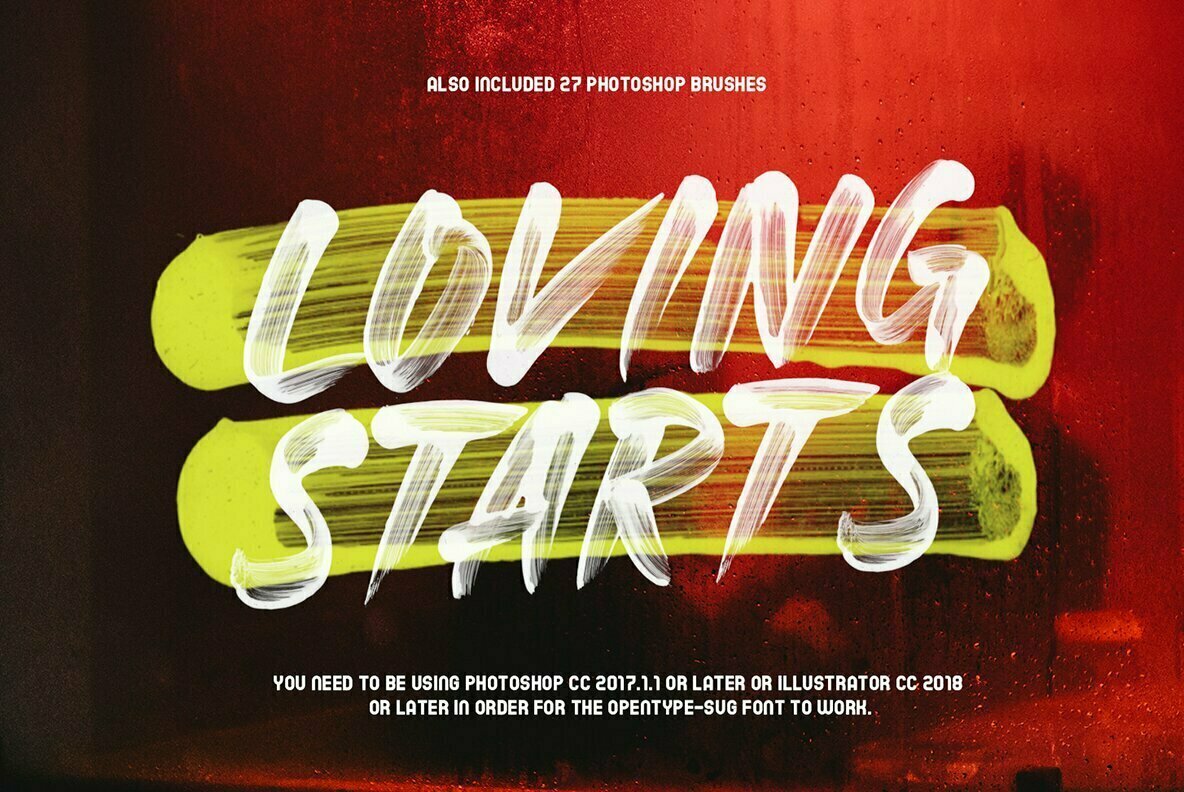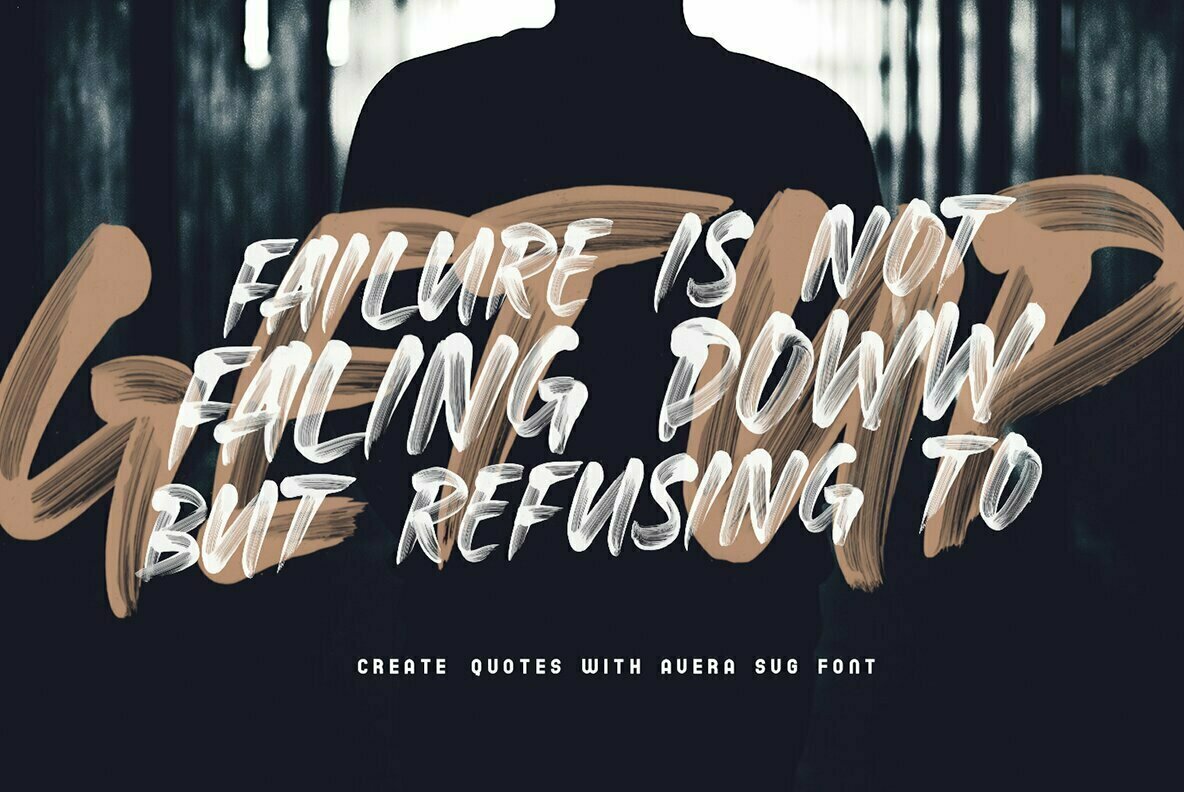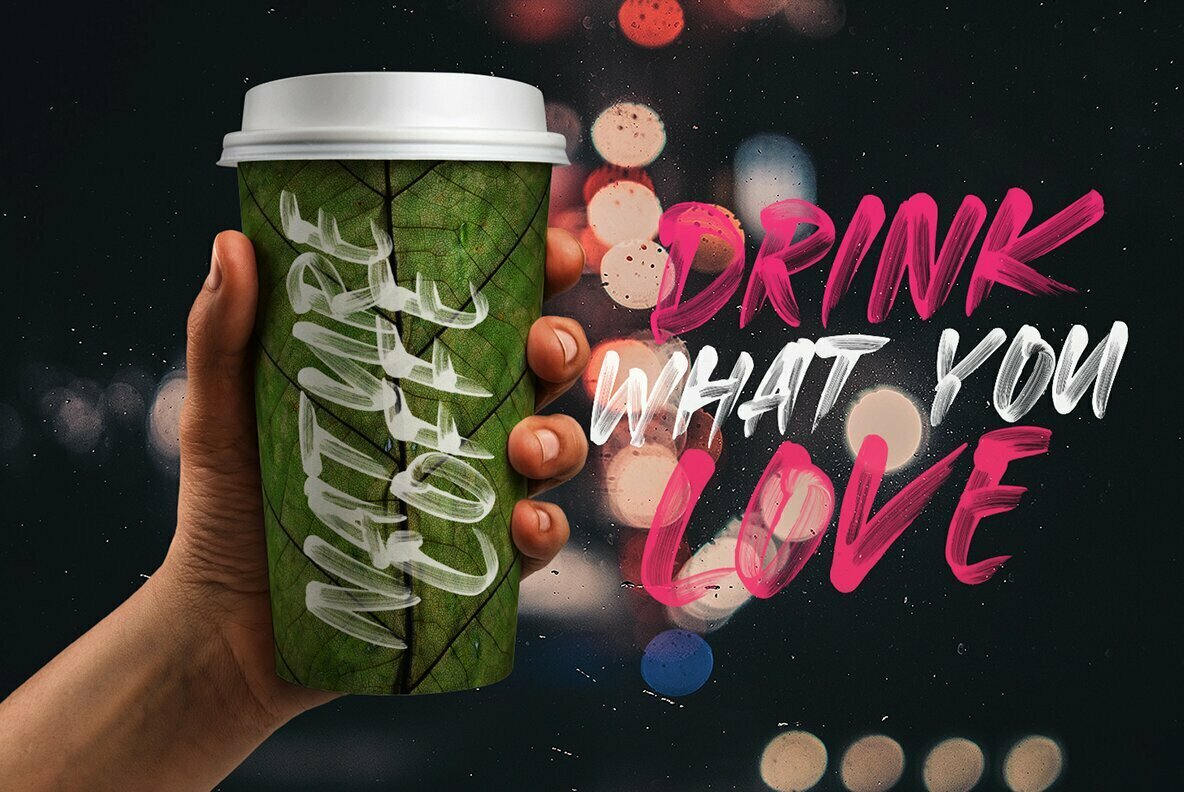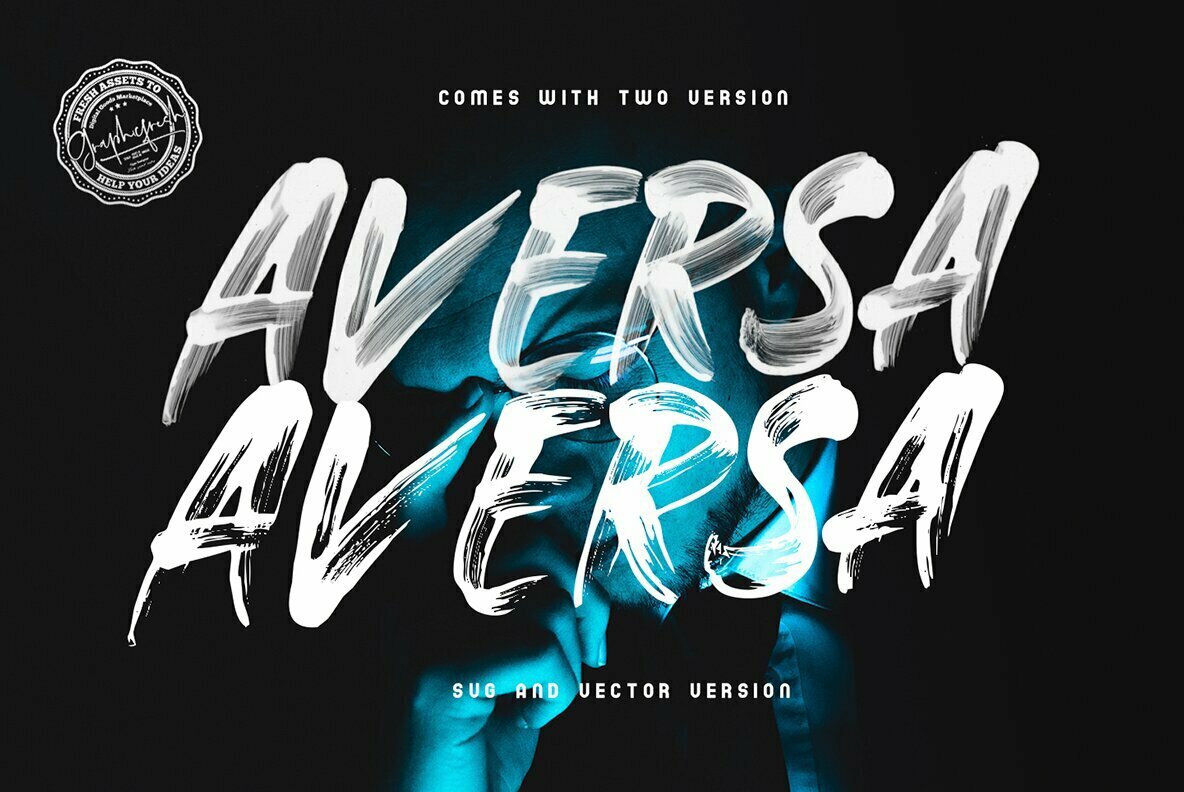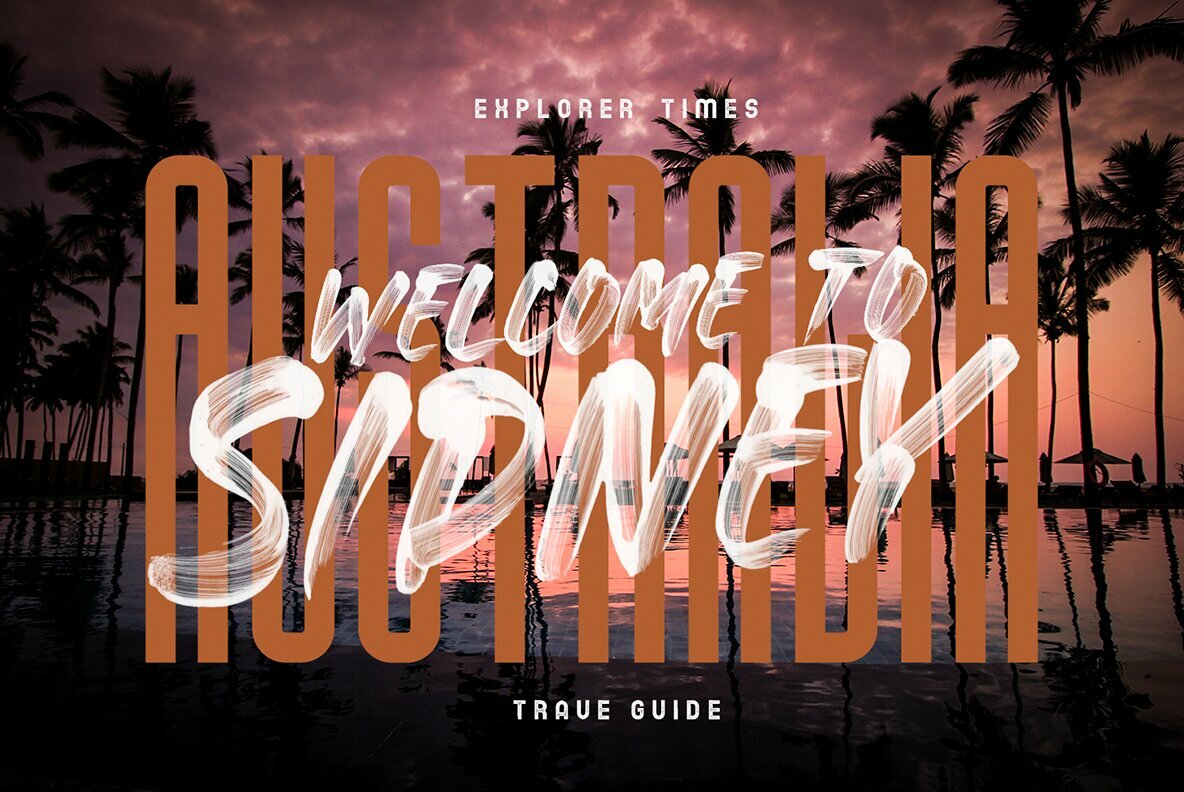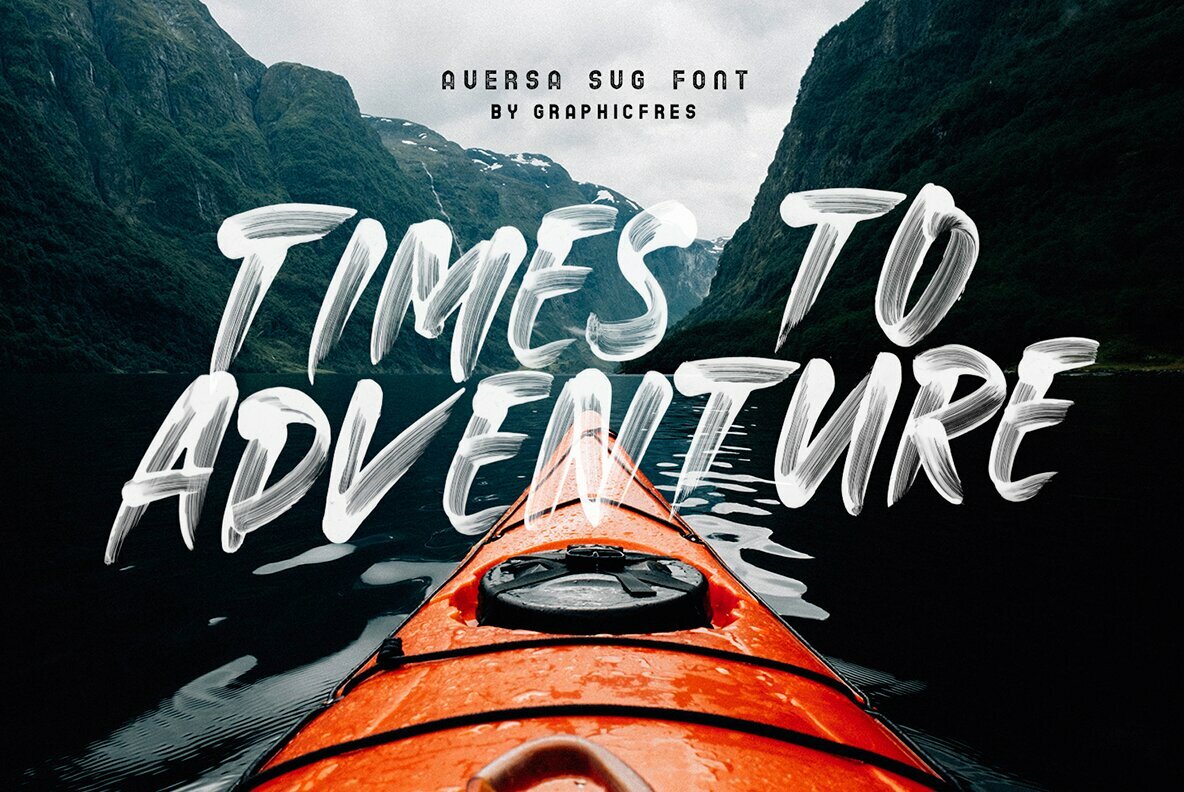
Aversa SVG Font
Aversa is a font design made from brush strokes, dipped in paint. Then it was written on paper and scanned at a high resolution to retain the paint elements.